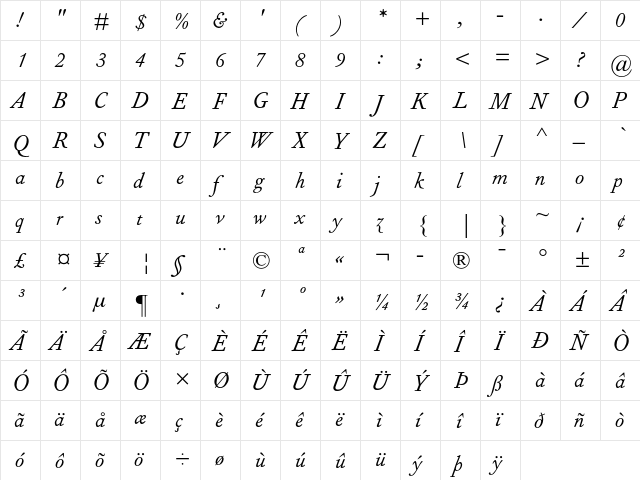
Fournier MT Italic Tall Caps
| Style | Italic Tall Caps |
Design Context for Fournier MT Typeface
Fournier MT is a composed and adaptable typeface that performs quietly and consistently across a wide range of design contexts. The slanted form adds forward momentum and visual energy.
Pro Tip: Try Fournier MT for annotation and caption copy alongside an upright companion — the contrast in angle creates a dynamic but ordered typographic system.